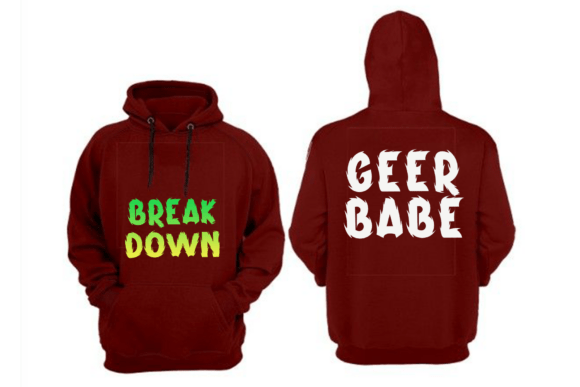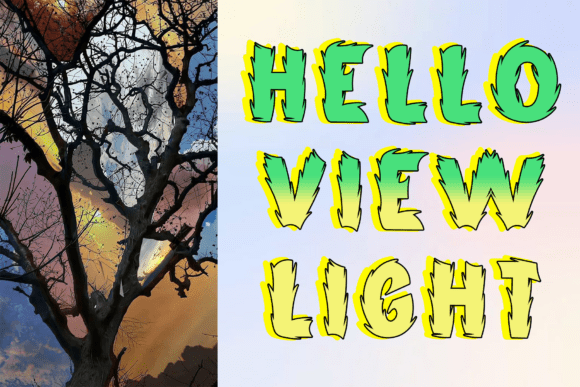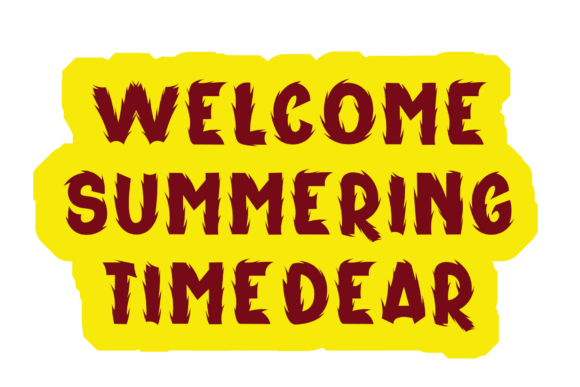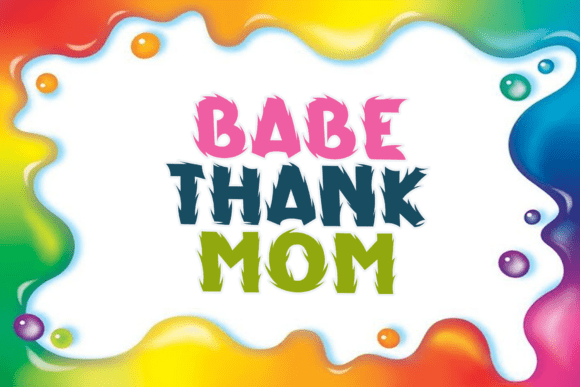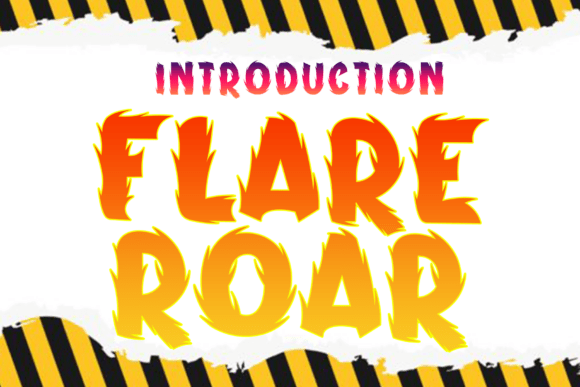
Discover the Unique Charm of Flare Roar Font: Elevate Your Designs with this Quirky Display Font
Are you tired of using the same old fonts in your designs? Look no further than Flare Roar Font, a unique and interesting display font that’s sure to add a touch of personality to your projects. A little bit quirky, this font looks incredibly adept on a wide variety of contexts, making it a versatile addition to any designer’s toolkit.
What Makes Flare Roar Font So Special?
Flare Roar Font is a one-of-a-kind display font that boasts a distinctive style that’s both eye-catching and memorable. Its quirky charm makes it perfect for designs that require a bit of personality, from bold headlines to attention-grabbing signage. Whether you’re working on a branding project, a website, or a craft project, Flare Roar Font is sure to make your design stand out from the crowd.
Key Features of Flare Roar Font
- Unique and quirky style: Flare Roar Font has a distinctive style that’s unlike any other font out there. Its quirky charm makes it perfect for designs that require a bit of personality.
- Versatile: Despite its unique style, Flare Roar Font is incredibly versatile and can be used in a wide variety of contexts, from bold headlines to attention-grabbing signage.
- Display font: Flare Roar Font is a display font, making it perfect for use in headlines, titles, and other display text.
- Easy to read: Despite its quirky style, Flare Roar Font is easy to read, making it perfect for use in designs where legibility is important.
How to Use Flare Roar Font in Your Designs
Flare Roar Font is incredibly easy to use in your designs. Here are a few tips to get you started:
- Use it as a headline font: Flare Roar Font is perfect for use in bold headlines and titles. Its quirky style makes it sure to grab attention and draw the reader in.
- Pair it with a simple font: For body text, pair Flare Roar Font with a simple font to create a striking contrast between the two.
- Experiment with different colors: Flare Roar Font looks great in a variety of colors, so don’t be afraid to experiment and find the perfect color to match your brand.
Flare Roar Font is perfect for designers and crafters who are looking to add a bit of personality to their projects. Whether you’re working on a branding project, a website, or a craft project, Flare Roar Font is sure to make your design stand out from the crowd.
As a designer, you know how important it is to have a unique and recognizable style. Flare Roar Font can help you achieve that. Its quirky charm makes it perfect for use in:
- Branding projects: Use Flare Roar Font to create a bold and eye-catching logo that’s sure to grab attention.
- Websites: Use Flare Roar Font to create bold headlines and titles that draw the reader in.
- Craft projects: Use Flare Roar Font to add a bit of personality to your craft projects, from handmade cards to DIY signs.
In conclusion, Flare Roar Font is a unique and interesting display font that’s sure to add a touch of personality to your designs. Its quirky charm makes it perfect for use in a wide variety of contexts, from bold headlines to attention-grabbing signage. Whether you’re a designer or a crafter, Flare Roar Font is a versatile and eye-catching font that’s sure to elevate your designs to the next level.